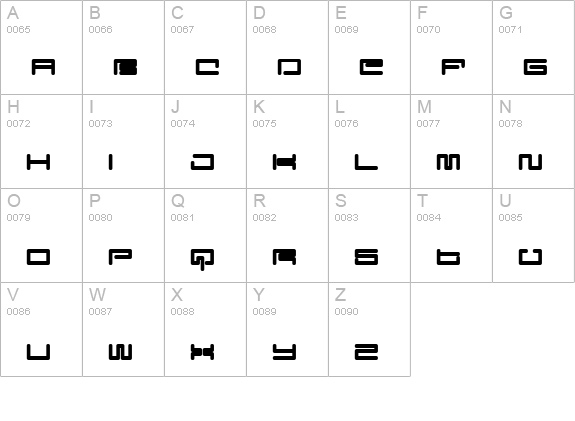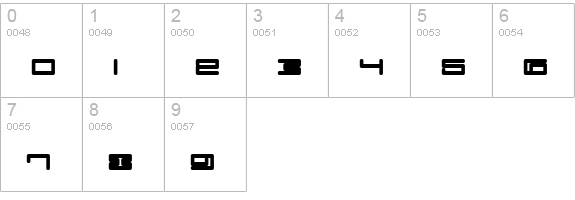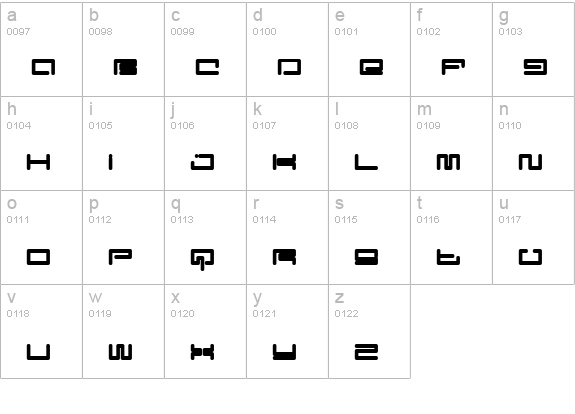
Digit Cube font is a modern and sleek typeface designed for digital projects and displays. This unique font features clean lines and geometric shapes, giving it a futuristic and tech-savvy appearance. With its bold and eye-catching design, Digit Cube font is perfect for adding a contemporary touch to logos, websites, posters, and more. Best of all, Digit Cube font is available for free download at FontsMarket.com. Don't miss out on this stylish and versatile font that will take your designs to the next level. Download Digit Cube font today and unleash your creativity!